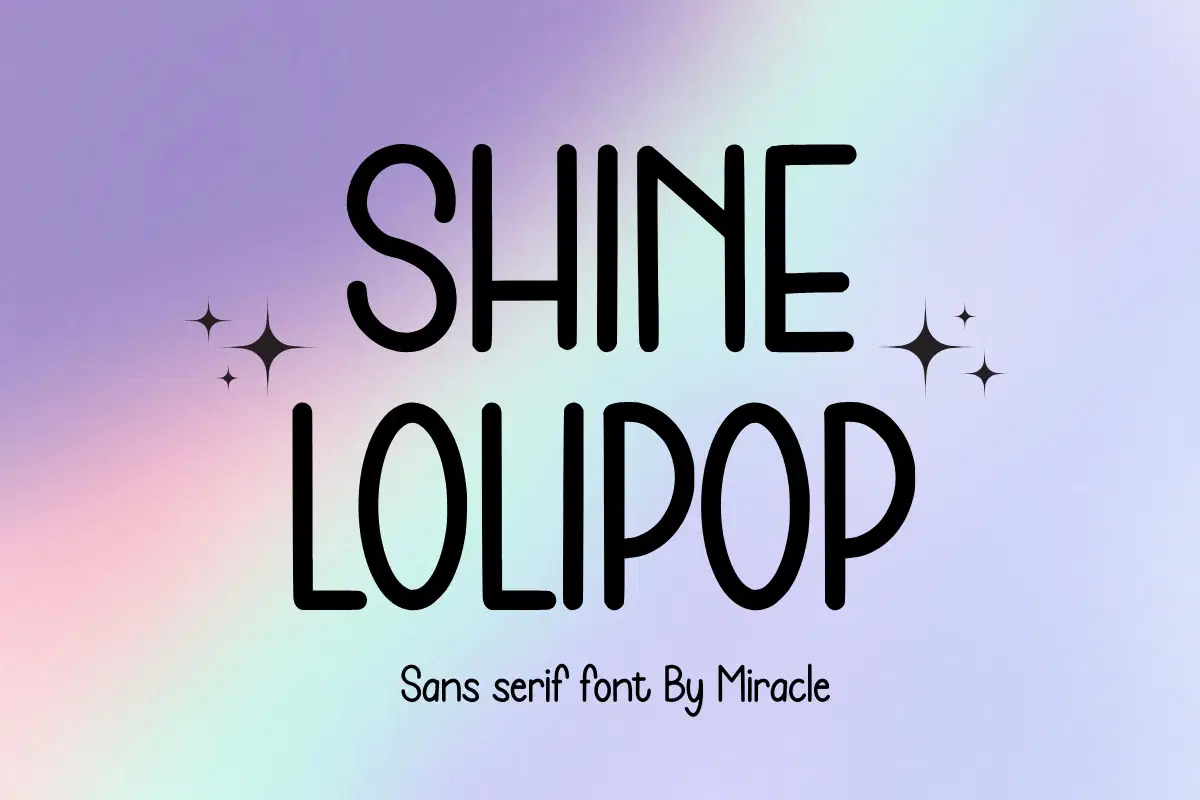
Light up your creative projects with Shine Lolipop, a stunning sans serif font by Miracle. Featuring tall, sleek letterforms and a playful hand-drawn essence, this font is designed to bring a sense of wonder and energy to your layouts. Its clean structure and whimsical rhythm make it an ideal choice for designs that need to look modern, "shiny," and full of life.
Shine Lolipop is highly versatile, offering great legibility for both digital and print projects. Whether you are creating a magical brand identity or a fun social media campaign, this font adds a polished yet playful "pop" that captures the eye instantly.